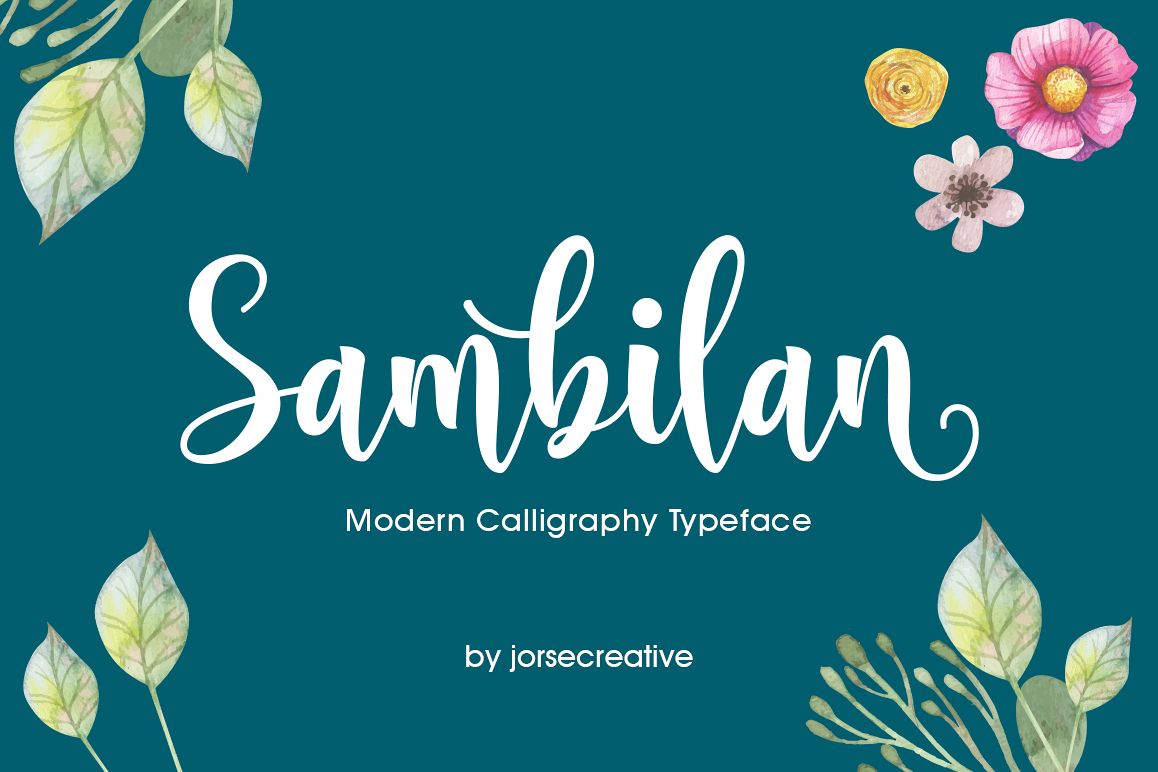
Sambilan Font
Sambilan
Sambilan Font is a type of Modern Calligraphy Typeface with classic typography letters that look very nice and fascinating. The Font section consists of 519 glyphs, including alternate characters with 3 SWATES TOOLS options including 8 options and initial and last support, alternately, ligature and multiple languages.
The features of this font is :
• STANDARD UPERCASE
• STANDARD LOWERCASE
ʉۢ SWASH ALTERNATIVES UPERCASE
ʉۢ STYLISTIC ALTERNATIVES LOWERCASE
ʉۢ NITIAL & TERMINAL ALTERNATIVE
ʉۢ STANDARD LIGATURES
• DISCRETIONARY LIGATUR